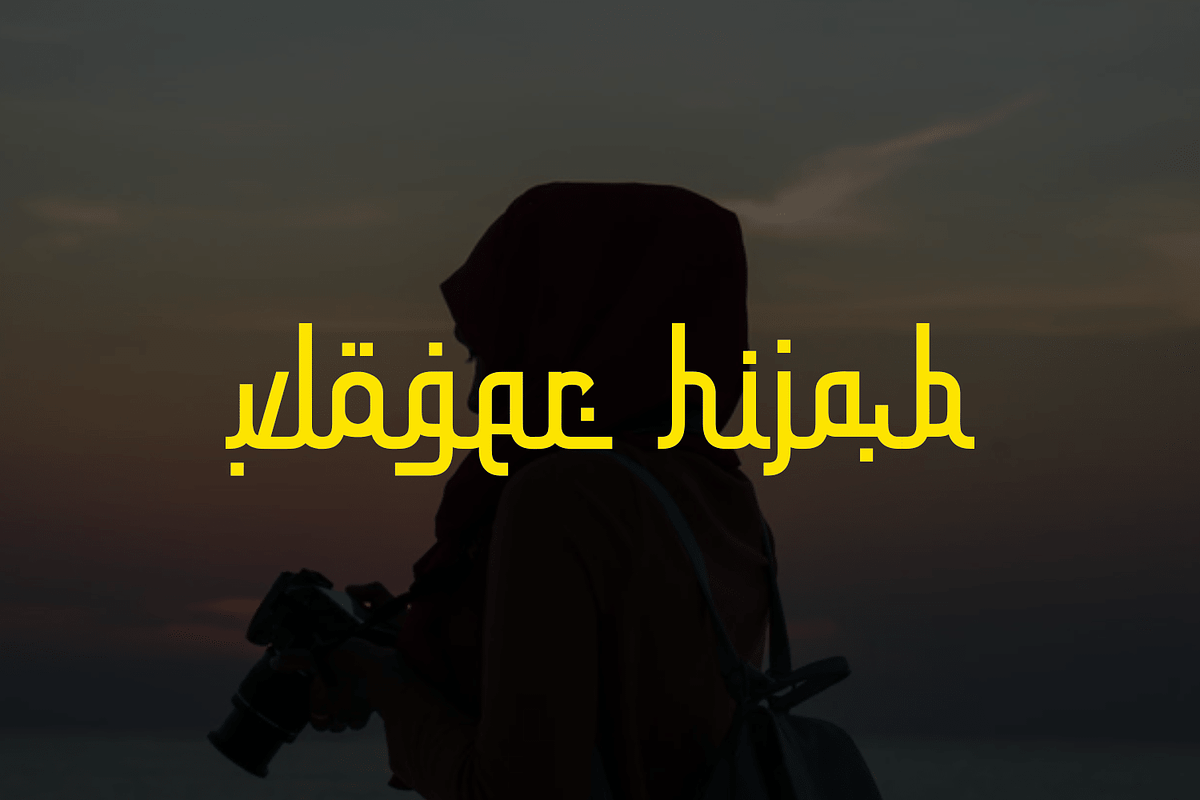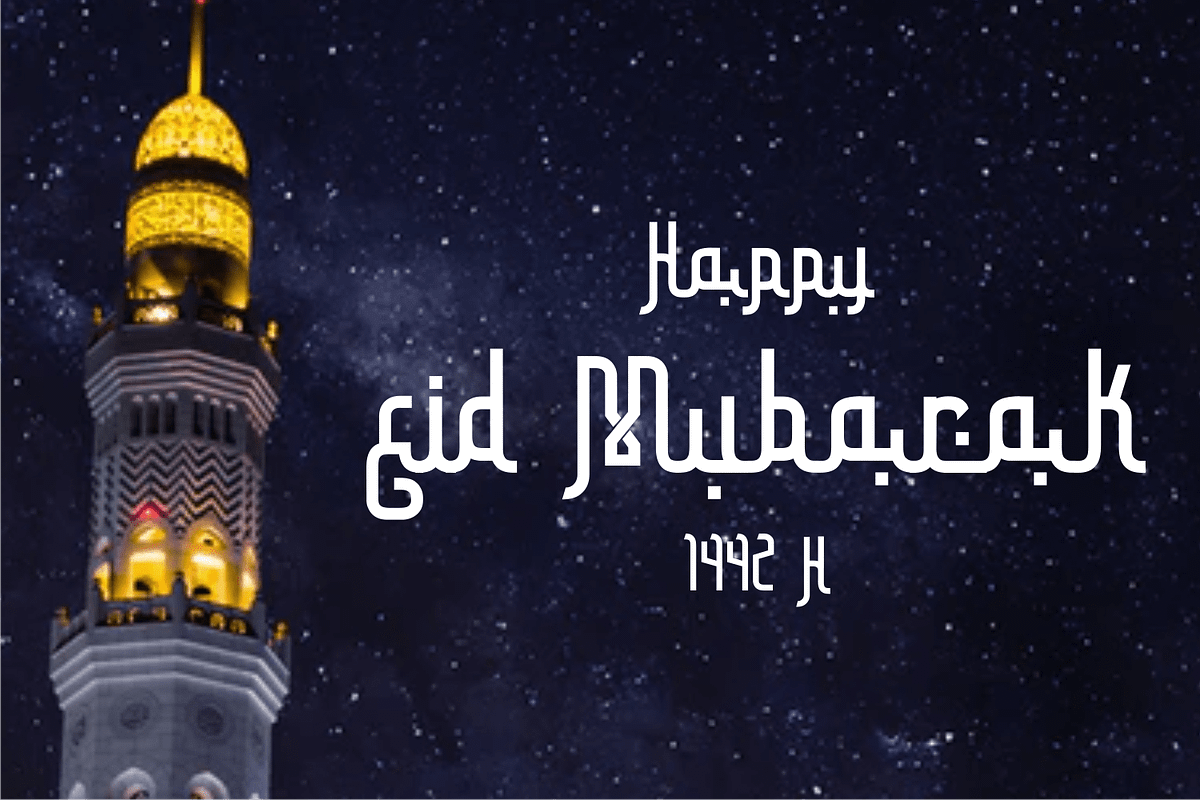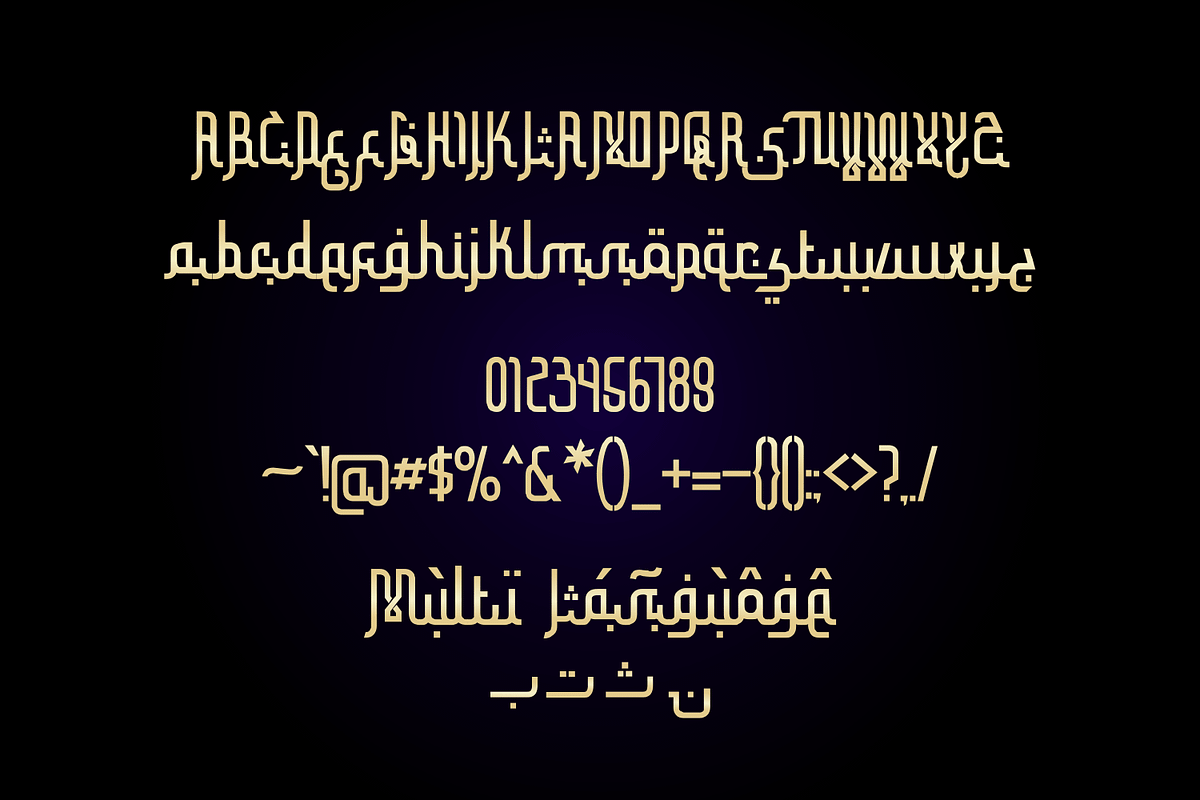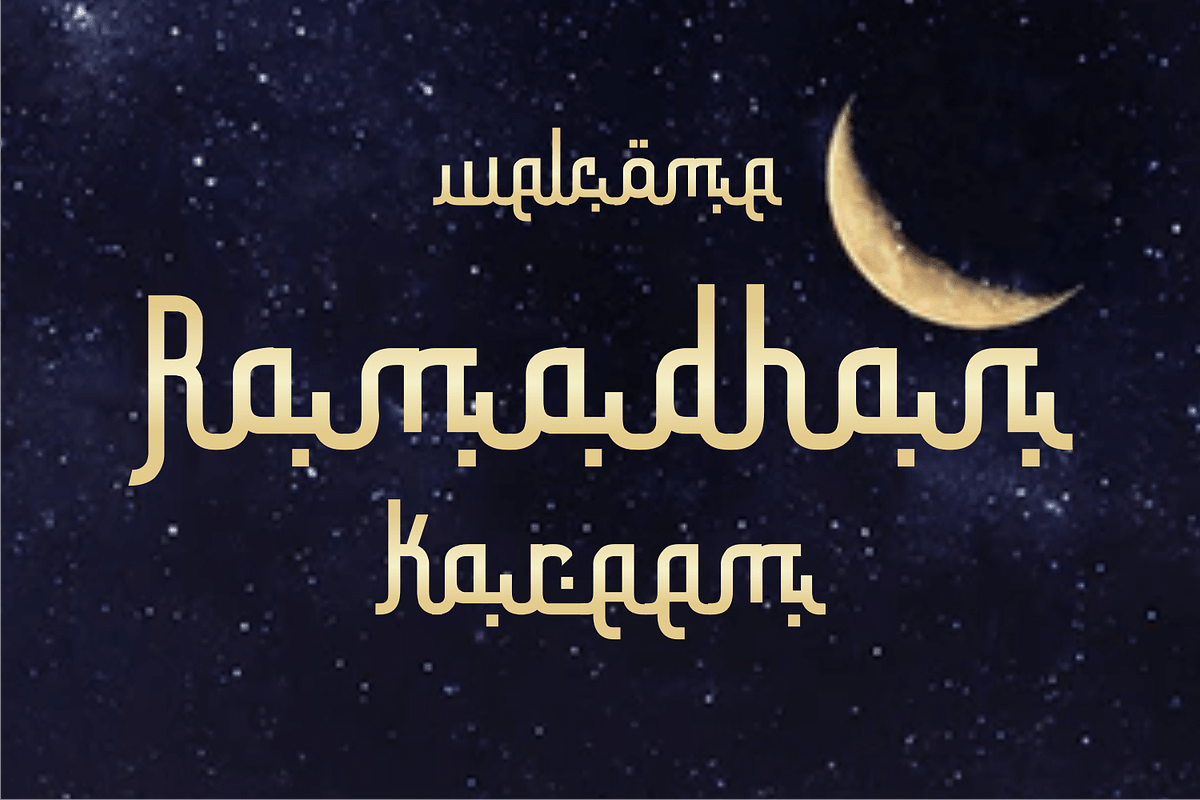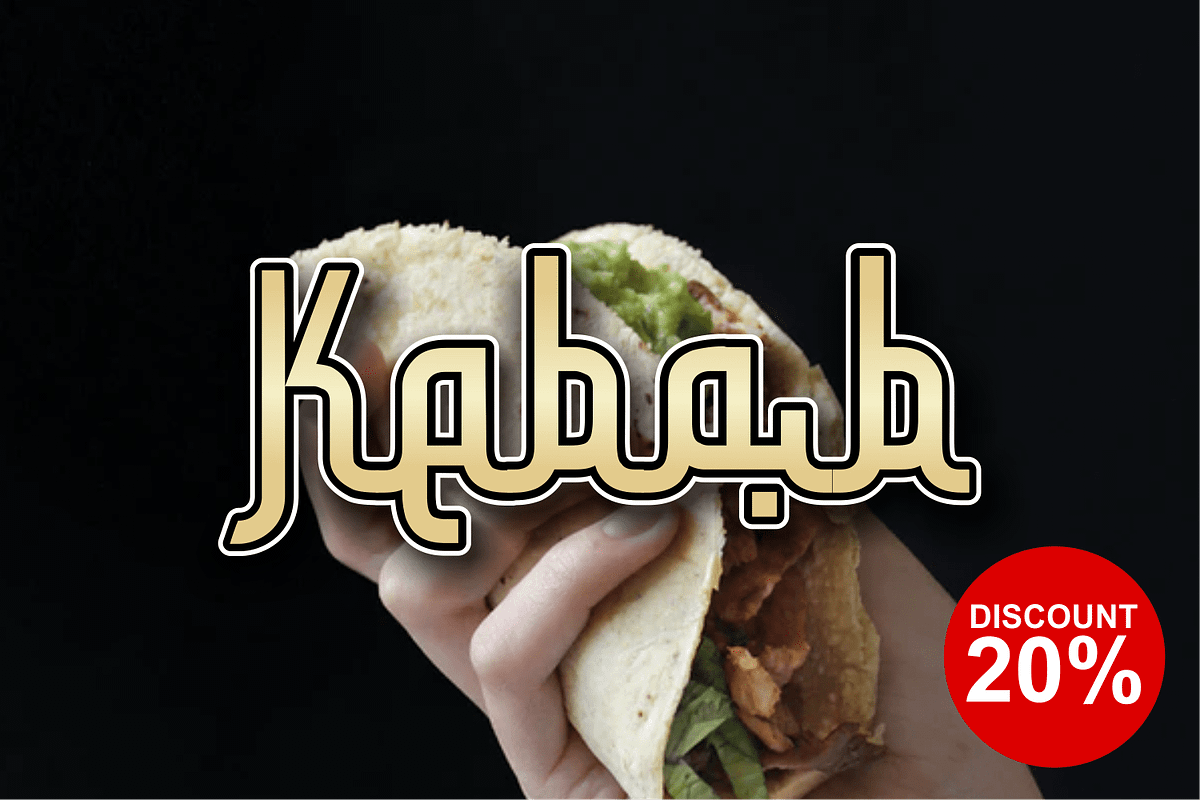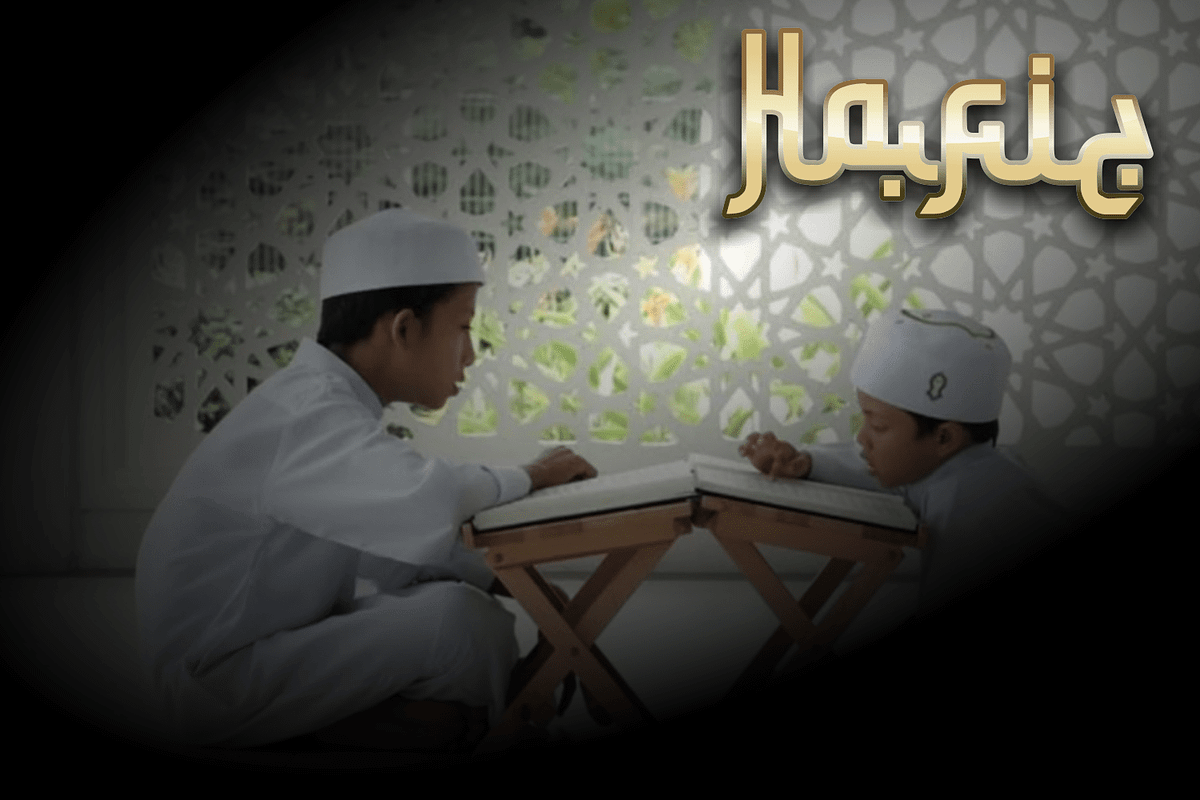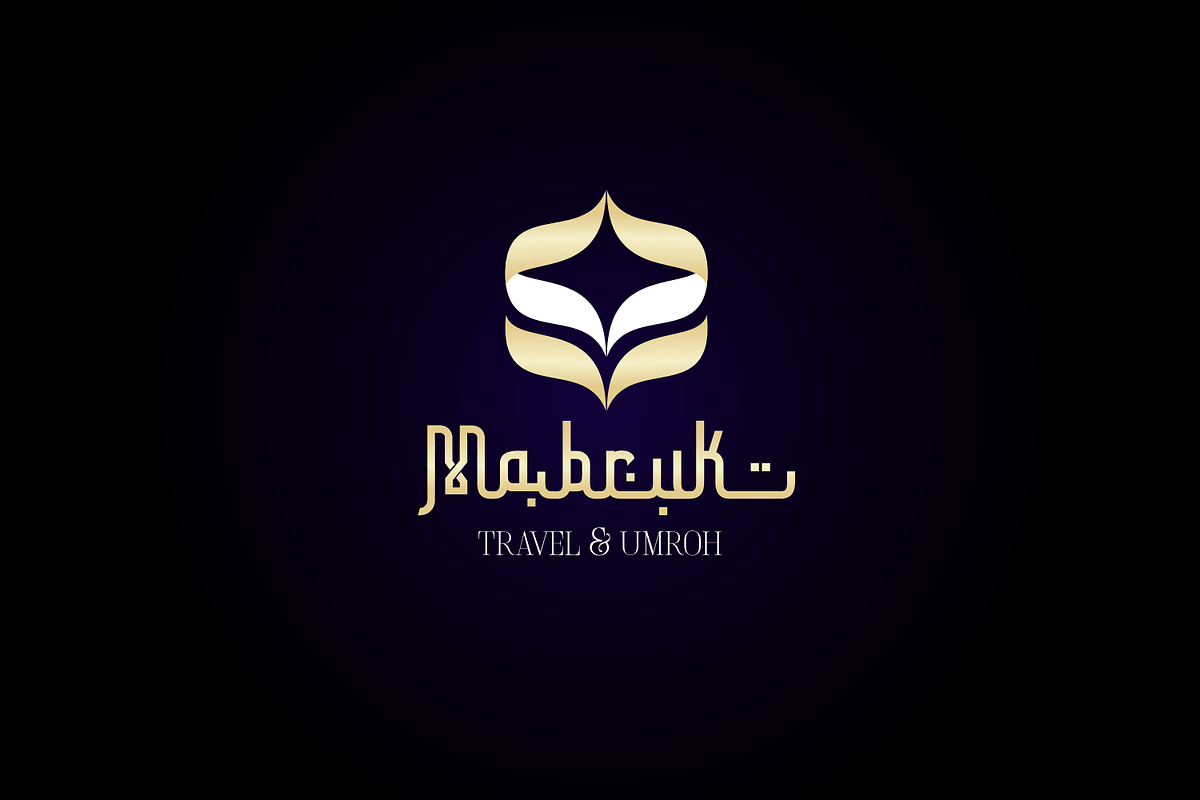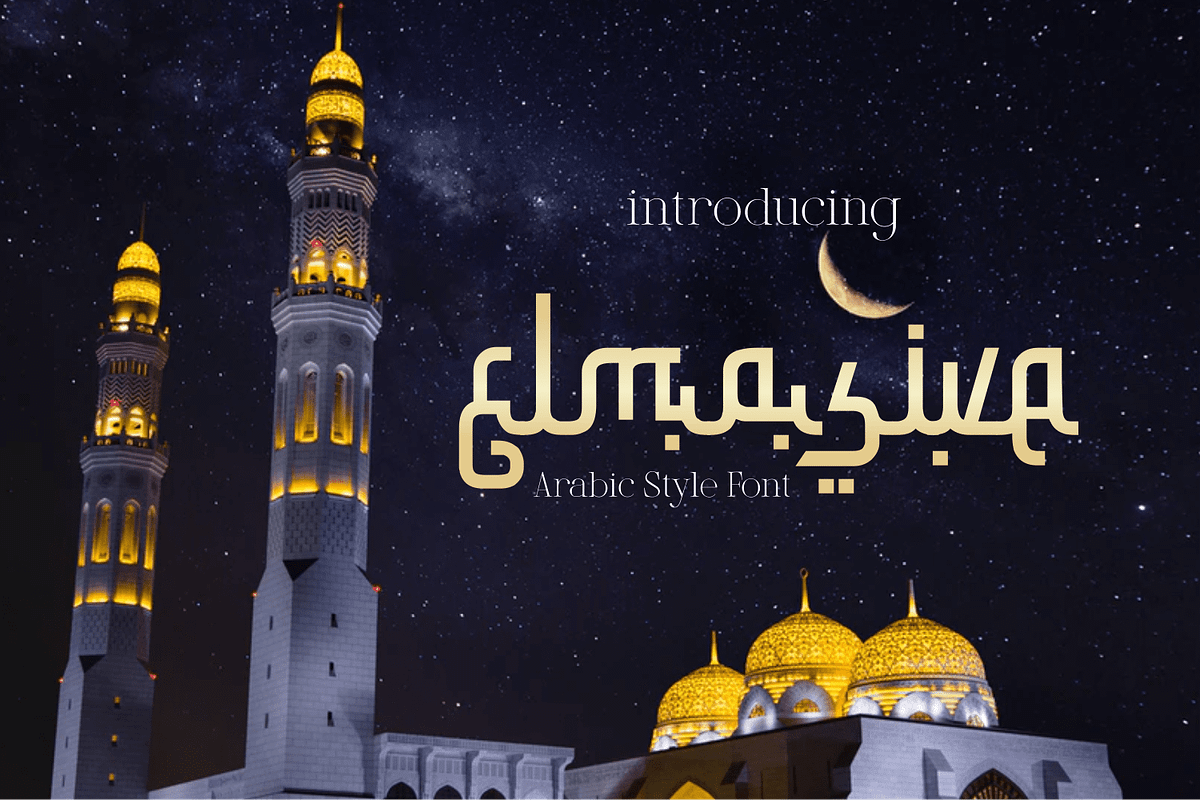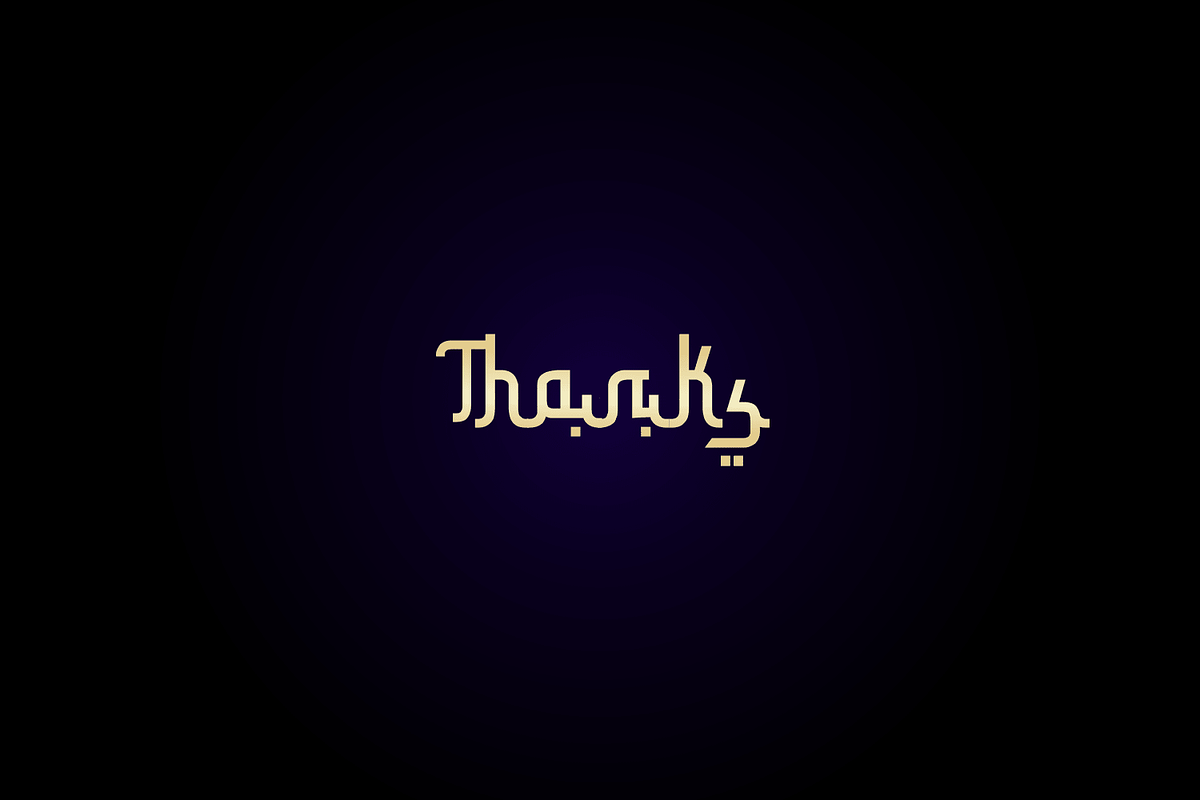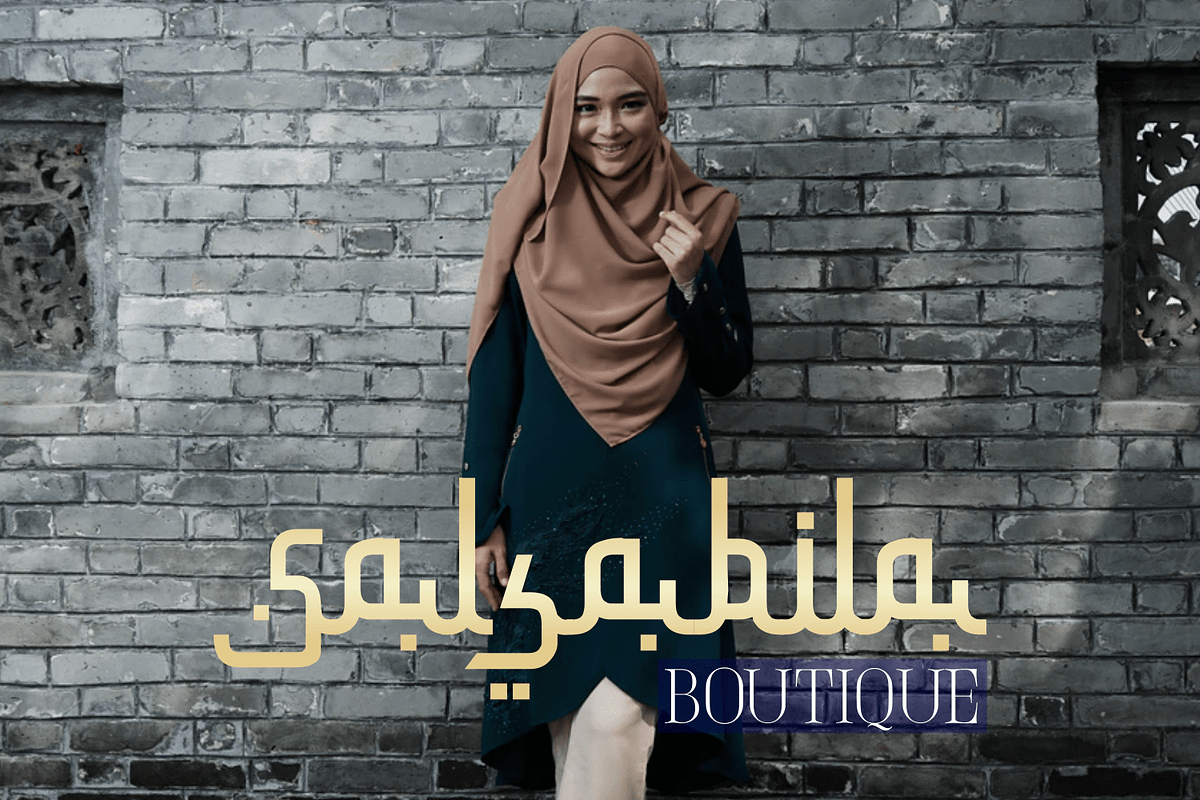
Elmasive
Introducing elmasive, a new display font in Arabic style. Designed in a modern kuhfi calligraphy style, it gives the impression of an elegant lettering appearance. This font is also adopted from the Hijaiyah letter "kuhfi modern style" which is very useful for Islamic or Middle Eastern content. Suitable for branding, logos, t-shirts, tote bags, vlogers, it is even perfect for invitations and other advertising needs. elmasive only has open type features such as swash which can be accessed from software that has an open type panel such as Adobe Illustrator, Photo Shop and others.